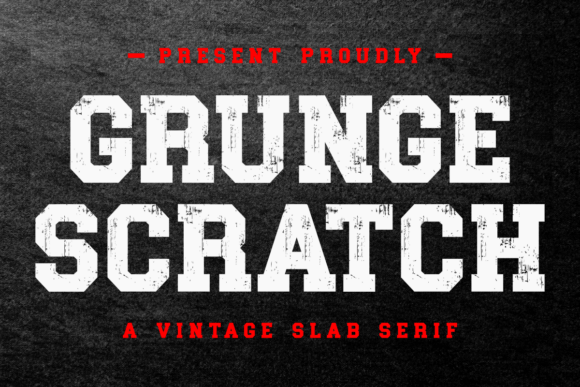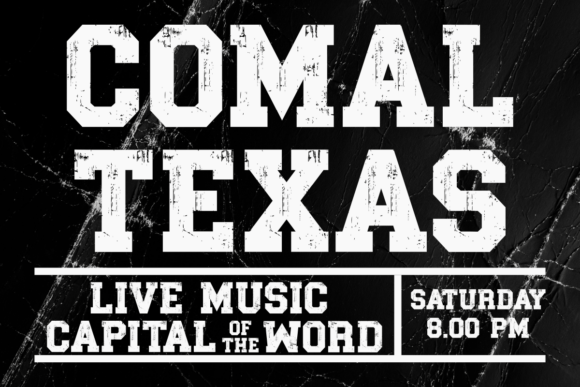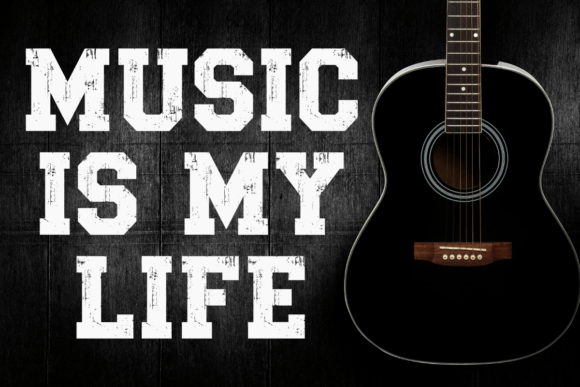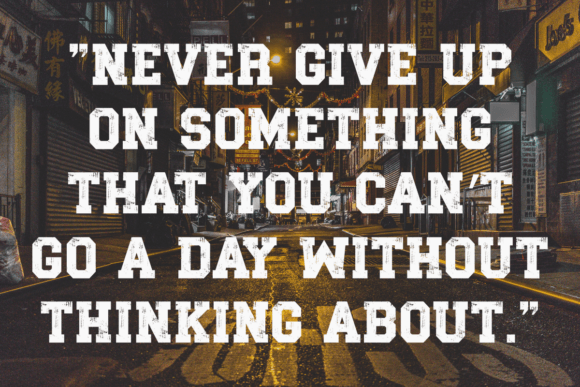
Grunge Scratch Font: A Bold, Vintage Slab Serif for Eye-Catching Posters
About the Grunge Scratch Font
Get ready to be inspired by Grunge Scratch Font, a fresh and dynamic typeface for modern creators. Grunge Scratch is a vintage and bold slab serif font inspired by college lettering. It is suitable for any winter and holiday branding project, crafting ideas, from cards to branding, labels product packaging, invitations, quotes, t-shirts, posters, text effects, logos, and much more.
Grunge Scratch excels in headline applications, short impactful phrases, and logo designs where its bold, vintage character can make a statement. It’s ideal for projects with a rebellious or retro aesthetic, such as apparel branding, posters, and packaging for products targeting a younger demographic. Avoid using it for large bodies of text or UI elements; its strong features compromise readability in smaller sizes or continuous paragraphs.
Pairing Grunge Scratch effectively requires considering its weighty, textured nature. A clean sans-serif like Futura or a minimalist geometric font such as Bebas Neue would provide a strong contrast, creating visual interest without clashing. For a warmer feel, a classic serif like Garamond could be used for supporting text, offering a balance of vintage charm with improved legibility.
The font’s overall personality is bold, rugged, and slightly rebellious. It conveys a sense of vintage energy and authenticity, making it perfect for brands that want to project a strong, confident, and somewhat nonconformist image.
Grunge Scratch Font Usage Examples
Grunge Scratch Font Example